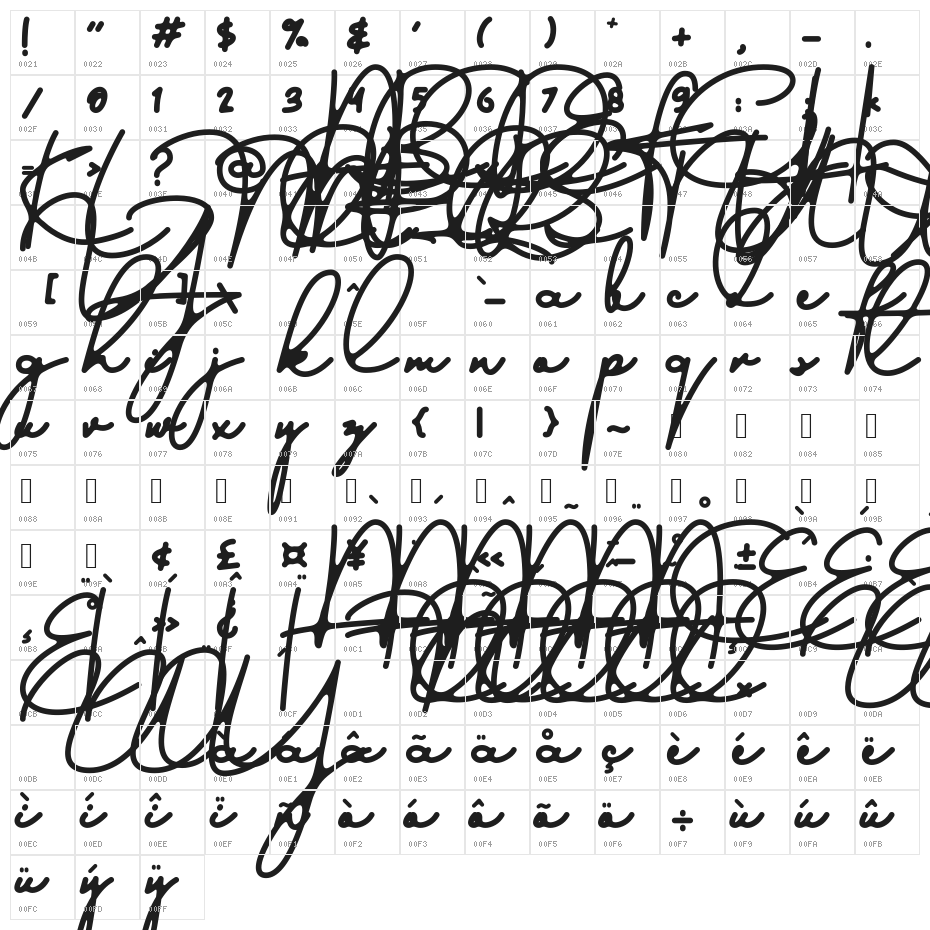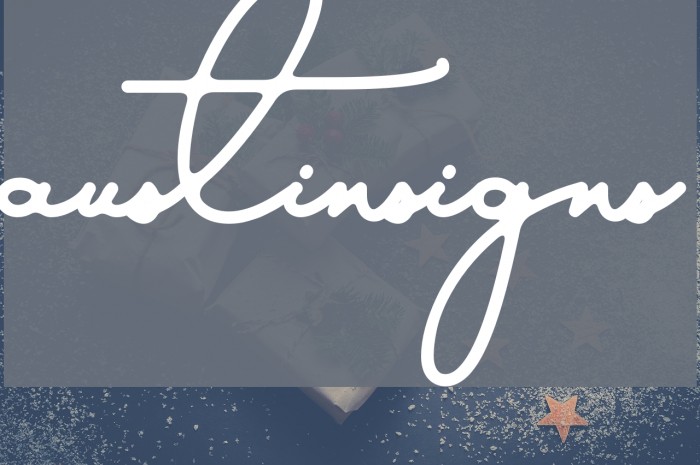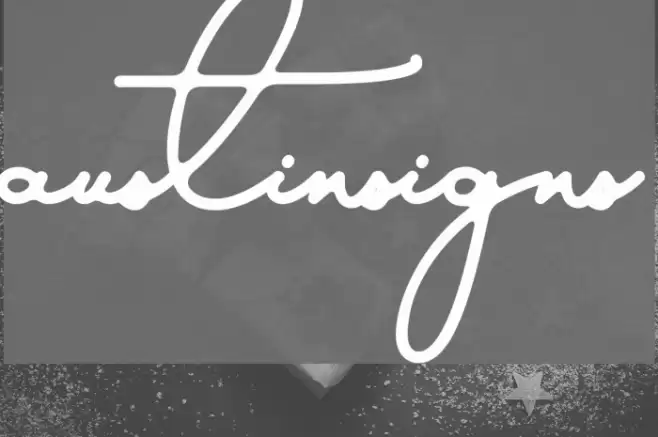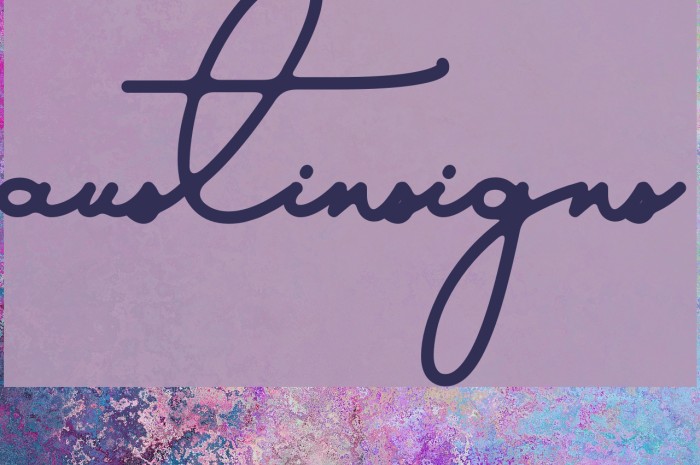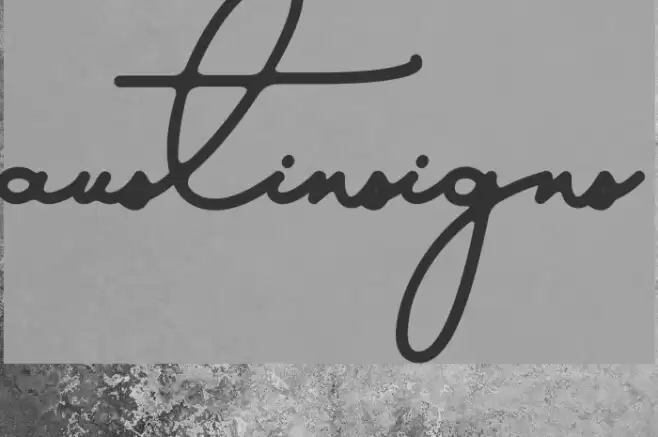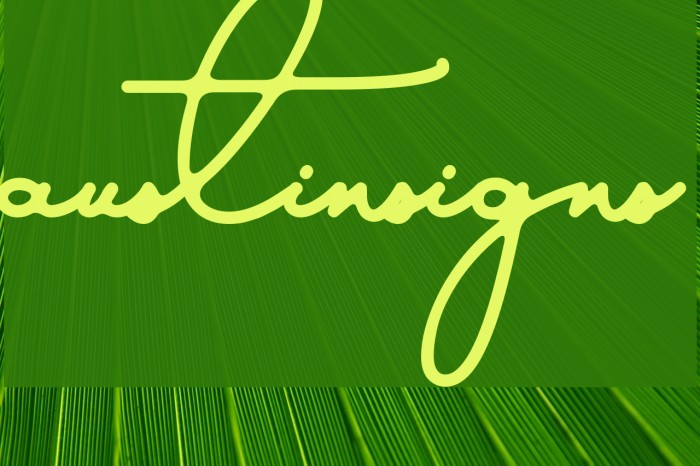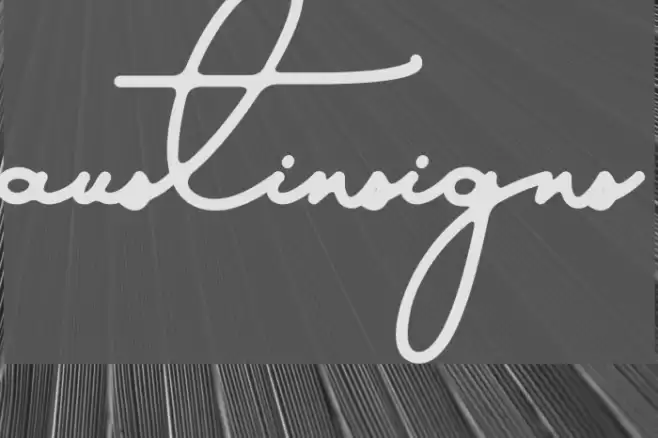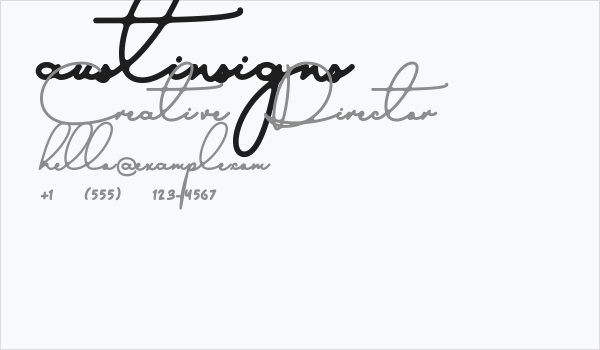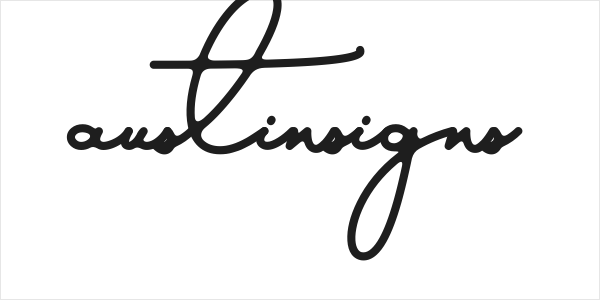
austinsigns Font
austinsigns Description
This font features a dynamic and expressive script style, characterized by its fluid, cursive strokes that mimic natural handwriting. The uppercase letters are elegantly connected, creating a seamless flow, while the lowercase letters exhibit a playful and artistic flair. The numerals are bold and rounded, providing a strong contrast to the delicate script. Special characters maintain the same boldness, ensuring consistency across all glyphs. This font exudes a sense of creativity and personal touch, making it ideal for projects that require a handwritten aesthetic.